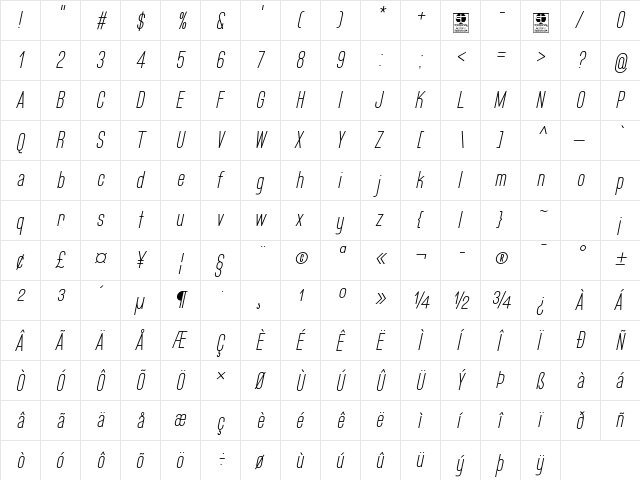
Bluefish Light Demo Italic Font Preview
| Foundry | StudioTypo |
| Designer | Mehmet Abac |
Design Context for Bluefish Light Demo Typeface
Bluefish Light Demo offers clean, dependable letterforms without strong stylistic allegiance, making it a practical choice for designers who need flexibility. Its italic angle brings a sense of urgency and motion to the letterforms. The delicate stroke weight brings airiness and refinement to layouts.